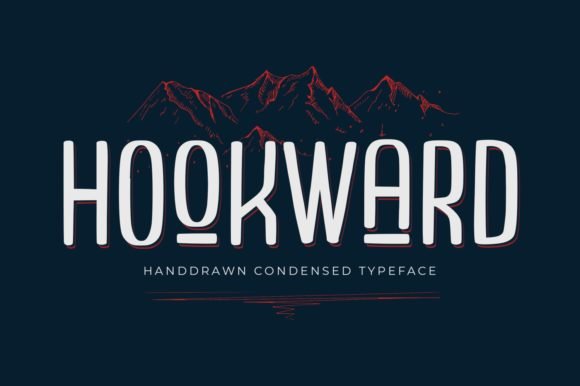
Enter the Hookward Font, a sleek and modern sans serif font that’s designed to elevate your projects and make them stand out. This versatile font is perfect for a wide range of applications, from digital signage to marketing materials, and even website design. With its clean lines and minimalist aesthetic, the Hookward Font is a valuable addition to any designer’s toolkit.
So why settle for a generic font when you can make a statement with the Hookward Font? Its flexibility and sophistication make it an ideal choice for designers looking to take their projects to the next level.
Key Features of Hookward Font
- Unique Characteristics: The font features a distinctive, curved design with subtle irregularities, giving it a hand-drawn feel while maintaining legibility.
- Kerning and Ligatures: The font includes advanced kerning and ligature pairs, ensuring smooth text rendering and a polished appearance.
Hookward Font Review
I recently had the chance to work with Hookward Font, and I must say it’s a mixed bag. On one hand, here are some things that work well:
- ✨ Unique aesthetic: Hookward Font has a distinct, whimsical feel that’s perfect for projects that need a touch of personality.
- ✨ Wide character set: The font includes a large number of characters, including ligatures and swashes, which is great for designers who need a lot of customization options.
- ✨ Easy to read: Despite its playful feel, Hookward Font is surprisingly easy to read, even at smaller font sizes.
On the other hand, here are some limitations to be aware of:
- ⚠️ Limited legibility at very small sizes: While Hookward Font is generally easy to read, it does start to break down at extremely small font sizes, which may be a problem for designers who need to use it in very small contexts.
- ⚠️ Limited compatibility: Hookward Font may not work perfectly in all environments, particularly older versions of certain software or operating systems.
Overall, I’d say Hookward Font is a solid choice for designers who are looking for a unique, playful font with a lot of character. However, it’s not without its limitations, and designers should be aware of those before committing to use it.
Hookward Font is ideal for creating eye-catching headlines, titles, and logos.
Use it to add a touch of whimsy and personality to your designs.
Alternatives to Hookward Font for Designers
Bebas Neue is a modern sans-serif font with a bold and elegant feel. It is ideal for use in headings, titles, and logos where a strong, eye-catching font is needed. Bebas Neue has a similar feel to Hookward Font but with a more refined and sophisticated appearance.
Comparison to Hookward Font: Bebas Neue is more polished and refined compared to Hookward Font, making it a great choice for designers who want a more premium feel.
Akzidenz Grotesk
Akzidenz Grotesk is a classic sans-serif font with a sturdy and robust feel. It is suitable for use in body text, headings, and titles where a solid and dependable font is needed. Akzidenz Grotesk has a similar industrial feel to Hookward Font but with a more traditional and timeless appearance.
Comparison to Hookward Font: Akzidenz Grotesk is more traditional and less experimental compared to Hookward Font, making it a great choice for designers who want a classic and dependable font.